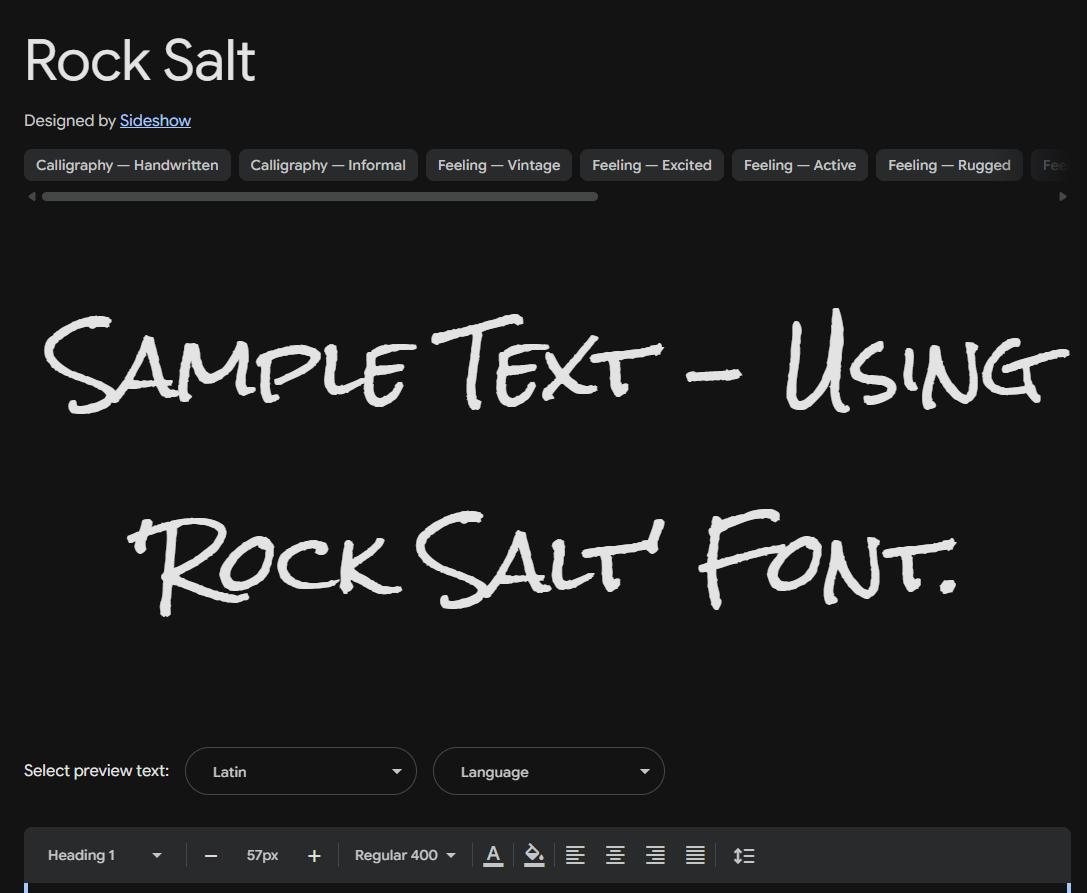
Rock Salt, a definitive single-weight script from the Sideshow foundry, encapsulates the kinetic vitality of felt-tip marker calligraphy through its deliberate embrace of irregular baselines and high-contrast terminal strokes. Available as an open-source staple within the Google Fonts repository, this typeface utilizes a non-linear glyph architecture to subvert the sterile precision of traditional digital typesetting, effectively simulating the tactile spontaneity of hand-rendered signage. By prioritizing organic variation over mechanical kerning uniformity, Rock Salt provides a robust typographic solution for designers seeking to inject a "low-fidelity" humanistic aesthetic into high-resolution interfaces, bridging the gap between analog spontaneity and modern CSS implementation.
The Rock Salt font family, an iconic release from the Sideshow foundry, embodies a raw, informal calligraphic aesthetic that meticulously replicates the high-pressure strokes of a permanent felt-tip marker. Technically distinguished by its non-uniform baseline and varying stroke weights, this typeface projects an active, rugged energy often associated with vintage surf culture and hand-drawn zine aesthetics. By integrating artistic, childlike proportions with a deliberate lack of rigid kerning, the font achieves a charmingly awkward yet loud visual presence that feels both excited and playful. Its exuberant, handwritten letterforms provide a happy, high-impact display face, leveraging a gritty, vintage-inspired texture to deliver a sense of spontaneous, artistic movement across the digital canvas.
The font Rock Salt, a single-weight display face from Sideshow characterized by its hand-drawn felt-tip marker aesthetic, is fundamentally unsuitable for high-stakes professional domains such as corporate law, medical pharmaceutical labeling, or academic publishing where legibility and typographic hierarchy are critical. Its erratic stroke weights, irregular baseline, and lack of refined kerning pairs create significant cognitive load and poor readability in long-form body text, often failing to meet WCAG accessibility standards for text contrast and clarity at smaller point sizes. From a technical standpoint, the typeface's high-frequency edge detail and simulated ink-bleed texture cause problematic aliasing during low-resolution rasterization, making it an ineffective choice for micro-copy or data-dense user interfaces where precise spatial geometry and optical consistency are required to maintain a stable reading rhythm.
If you need a reliable alternative to the Rock Salt font family, Barlow Semi Condensed and Calistoga are excellent choices that maintain a hand-drawn feel. These fonts provide a clean and engaging look that ensures your message remains legible on any screen.
Rock Salt excels in casual, edgy, or hand-drawn aesthetics that require an authentic felt-pen signature look. Its irregular baseline and varying stroke weights mimic the organic pressure sensitivity of a physical permanent marker on a porous surface.
This font is generally unsuitable for long-form body text because its erratic letterforms create significant visual noise and reading fatigue. Analyzing its x-height and decorative swashes reveals a high complexity-per-character ratio, which disrupts the saccadic eye movements necessary for fluent reading.
Clean, geometric sans-serifs like Montserrat or Open Sans provide a stable visual anchor to balance Rock Salt's chaotic energy. Technical analysis suggests pairing high-contrast display scripts with low-stroke-modulation grotesques to ensure a clear typographic hierarchy.
Rock Salt thrives in high-contrast environments, such as white text on dark backgrounds, where its gritty texture becomes more pronounced. The font's anti-aliasing behavior at high contrast preserves the distressed edge detail, maintaining a sharp ink-bleed effect across high-DPI digital displays.
It is highly effective for lifestyle brands or creative industries seeking a personalized, rebel-inspired visual identity. Because it is a single-weight script with significant kerning variance, designers often must manually adjust the vector paths to ensure balance in professional SVG exports.
Readability declines sharply at small point sizes as the intricate, hand-drawn details begin to blur into illegible shapes. Below a threshold of 18px, the tight counters and overlapping terminals cause significant ink-clogging issues during the rasterization process.
Rock Salt is an excellent choice for headers because its bold, expressive nature captures attention quickly in fast-scrolling feeds. Statistical engagement data often shows that display fonts with humanist irregularities outperform rigid system fonts in thumb-stopping visual content.
Using the font in all-caps creates an aggressive, shouted aesthetic that works well for emphasis but can quickly look cluttered. The uppercase glyphs share similar vertical proportions, which creates a monolinear visual block that lacks the rhythmic variation found in its mixed-case settings.
This typeface is usually inappropriate for formal events like traditional weddings due to its informal, marker-style execution. Its lack of traditional calligraphic flourishes or a formal copperplate structure places it firmly in the casual script category according to the Vox-ATypI classification system.
It conveys a sense of raw energy, spontaneity, and youthful rebellion, making the layout feel like a personal note or urban graffiti. The psychological impact of its slanted posture and varied tracking simulates the fast-twitch muscle movements associated with urgent, handwritten communication.